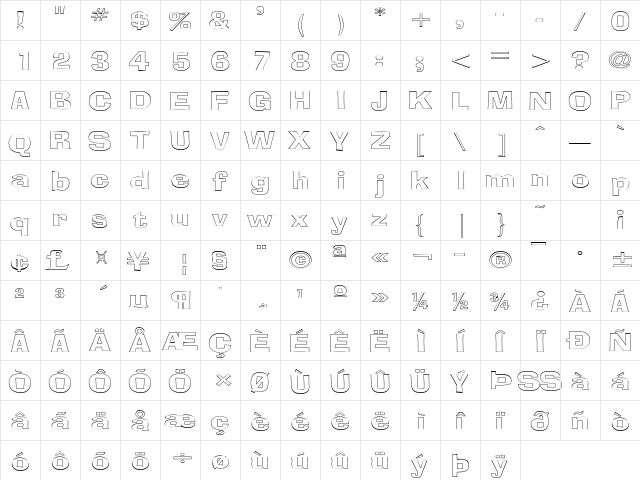
BloxOutline Regular
Design Context for BloxOutline Typeface
BloxOutline brings ornamental detail and strong personality to headlines and identities, where visual impact matters more than quiet functionality.
Font Pairing: Pair with a clean neutral sans-serif for body copy to let BloxOutline's character lead without overwhelming the composition.
Pro Tip: Use BloxOutline exclusively at display sizes — it was designed to be seen, not read at length. Let a neutral companion handle body copy.